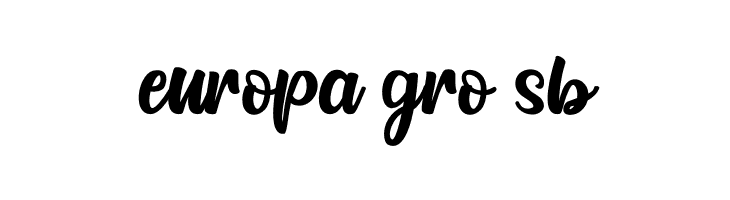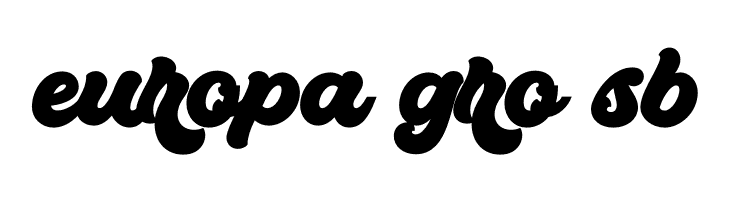
A dynamic script font with a rough, brush-like texture and flowing cursive style.
A graceful, cursive script font with a natural handwritten style.
An ornate, tattoo-inspired script font with elaborate swirls.
An ornate script font with intricate loops and flourishes, reminiscent of traditional calligraphy.
An ornate script font with flowing, interconnected letterforms and decorative flourishes.
An ornate and decorative script font with elaborate swirls and flourishes.
An elegant script font with flowing, ornate letterforms and intricate swashes.
An elegant script font with intricate loops and swashes, ideal for formal designs.
A lively and expressive script font with fluid strokes and a handwritten style.
A playful, flowing script font with a handwritten style and medium contrast.
A playful and casual script font with flowing, connected letters and smooth, rounded strokes.
A whimsical and ornate script font with flowing, interconnected letters.
An elegant script font with flowing, ornate swashes and high contrast strokes.
A bold, playful script font with a handwritten style.
A playful, flowing script font with smooth, continuous strokes.
A flowing, cursive script font with elegant swashes and a modern twist.
An elegant and decorative script font with intricate loops and swirls.
A bold, angular script font with a dynamic and energetic style.
An elegant and flowing script font with ornate, decorative letterforms.
A bold, flowing script font with interconnected characters and a modern touch.
An ornate and decorative script font with intricate swirls and flourishes.
An elegant and decorative script font with flowing, interconnected letters.
An elegant script font with intricate swirls and high contrast, perfect for decorative purposes.
A playful, flowing script font with a casual, handwritten style.
A decorative script font with elegant swirls and loops, perfect for adding sophistication.
A playful and whimsical script font with elegant, flowing curls and loops.
A playful and whimsical script font with decorative swirls and a hand-drawn feel.
A lively and flowing script font with elegant, connected letterforms.